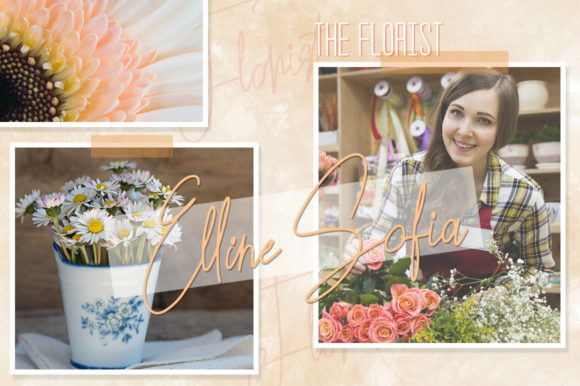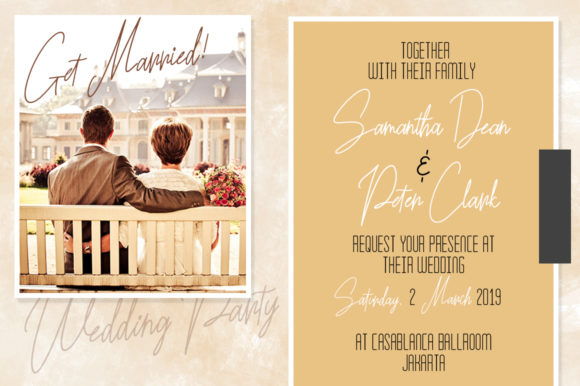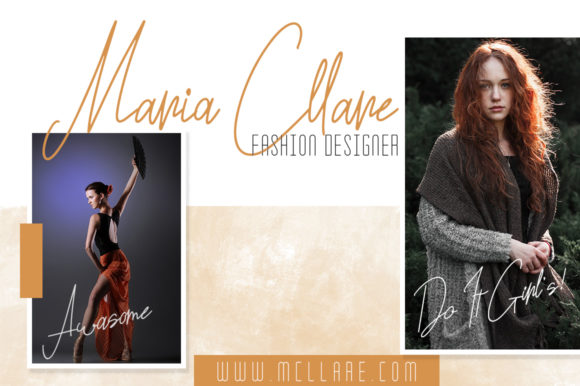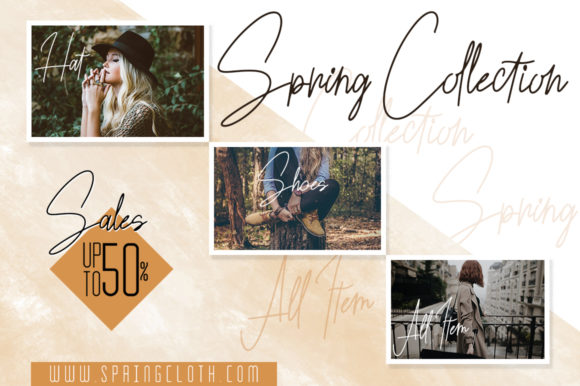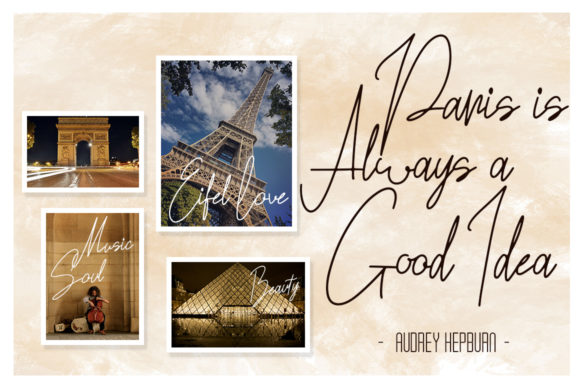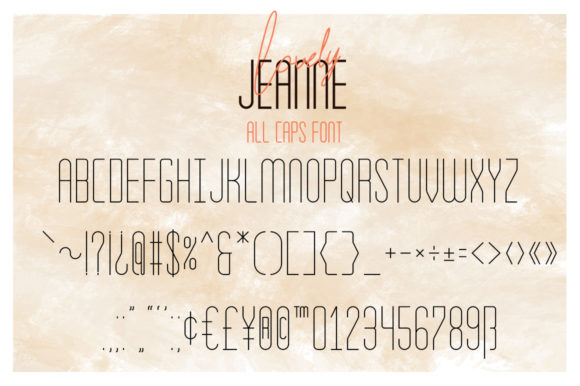
Introduction to Lovely Jeanne Duo Font
Lovely Jeanne is a simple, yet beautiful font duo with classic touch.
Its modern feel will turn any design project into a true stand out .
Key Features of Lovely Jeanne Duo Font
Why Choose Lovely Jeanne Duo Font?